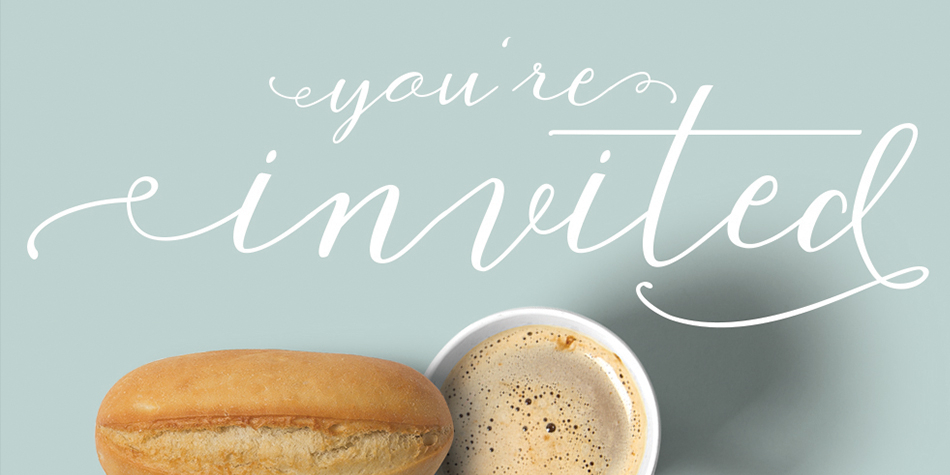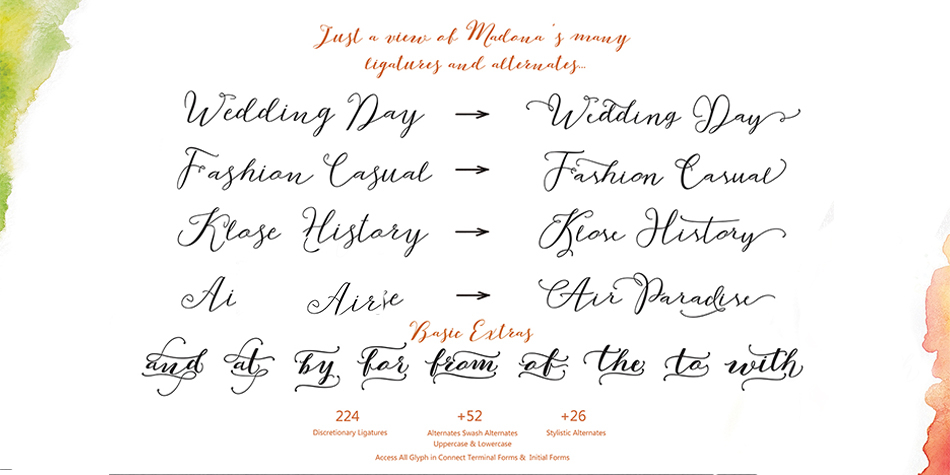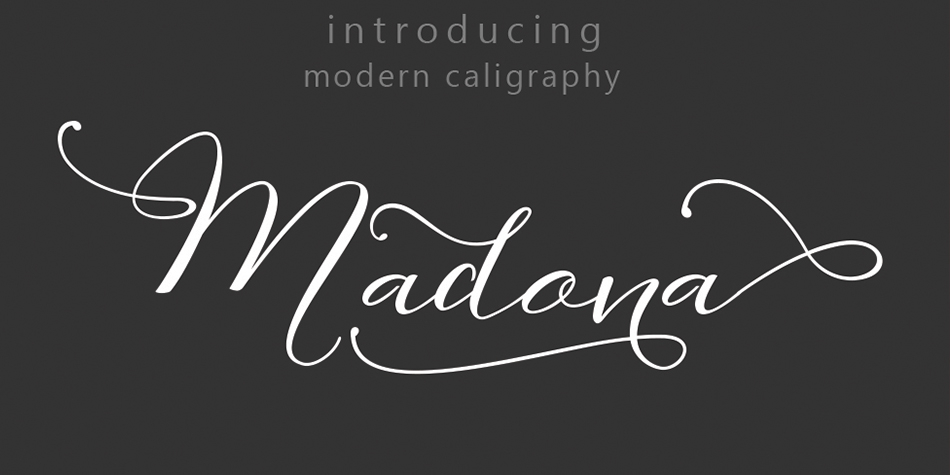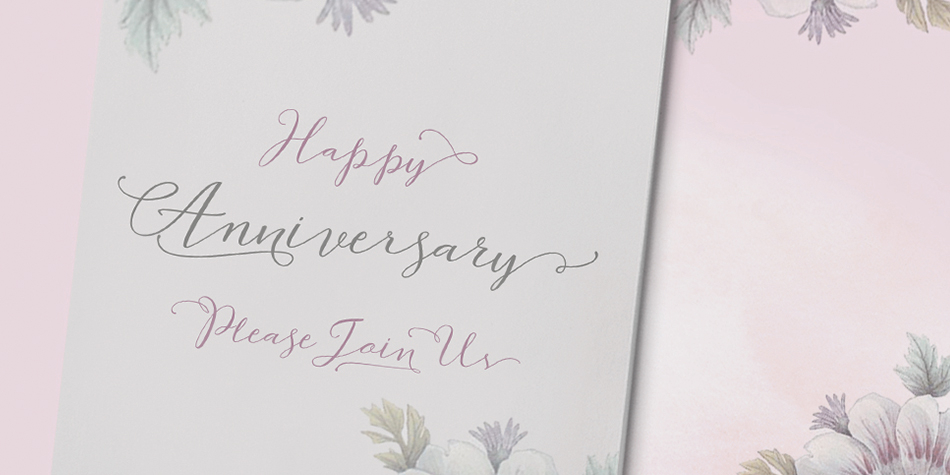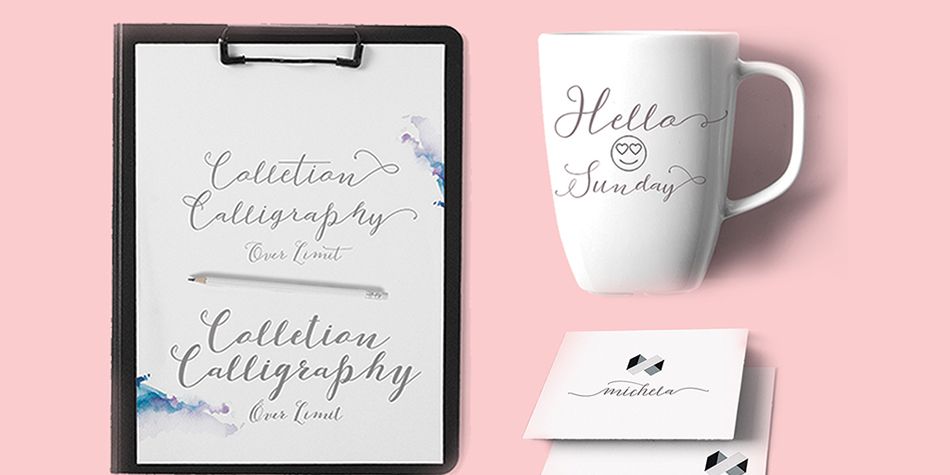
Madona Script is a modern calligraphy font family. This typeface has two styles and was published by Genesislab.
Introducing a new style and Basic Script Font Madona with 2 types of modern calligraphy script thick and thin and precise connection original style of handwriting, if you are interested in this font, it can be used easily and simple application that supports your work.
The Font Madona script incorporated in OpenType fitted with PUA Unicode glyphs +505 Included among Stylistic Alternates, Swash, discretionary ligatures, Shape Terminal, early form, and in addition to the Basic Madona +179 glyph characters.
The fonts in the new year will match the growing market today, with the form of cursive typeface design style is soft and cold, you can mix with fun and feel feminine. Trendy and a wonderful way to highlight your best party celebration, as supporters such as wedding invitations, parties, graduations, birthdays, meetings, and other.